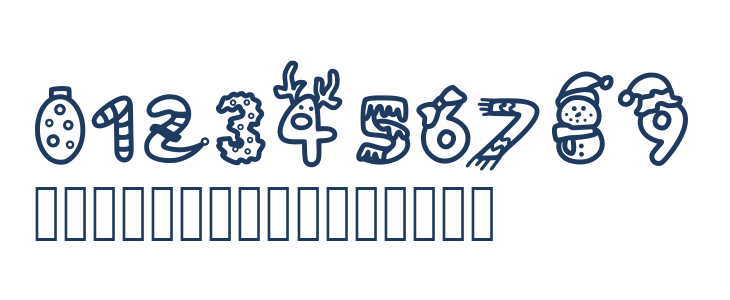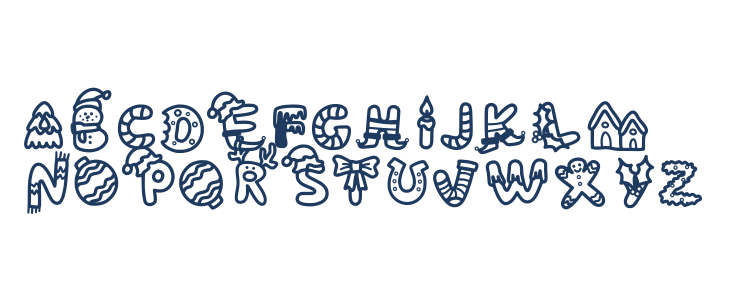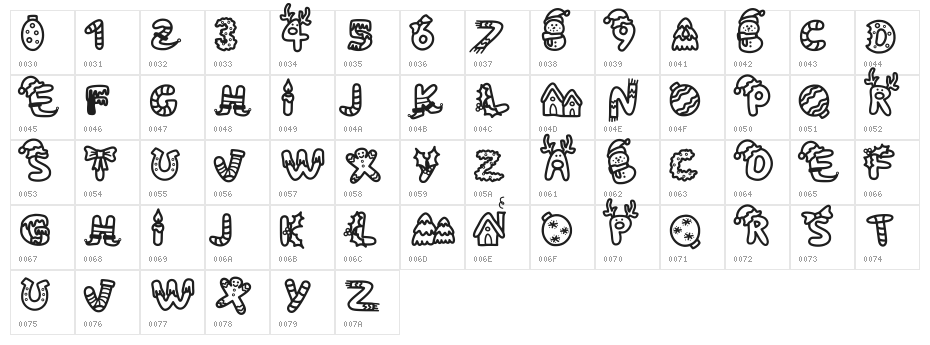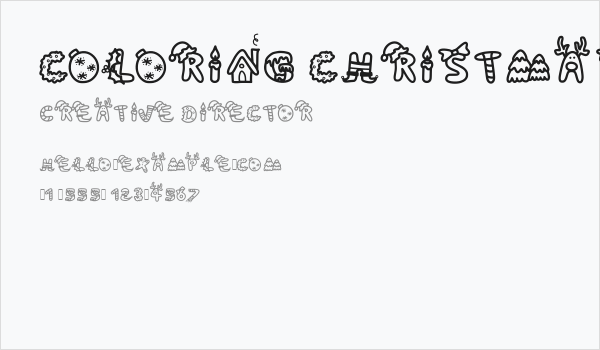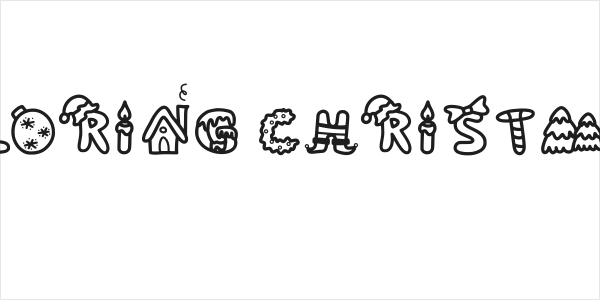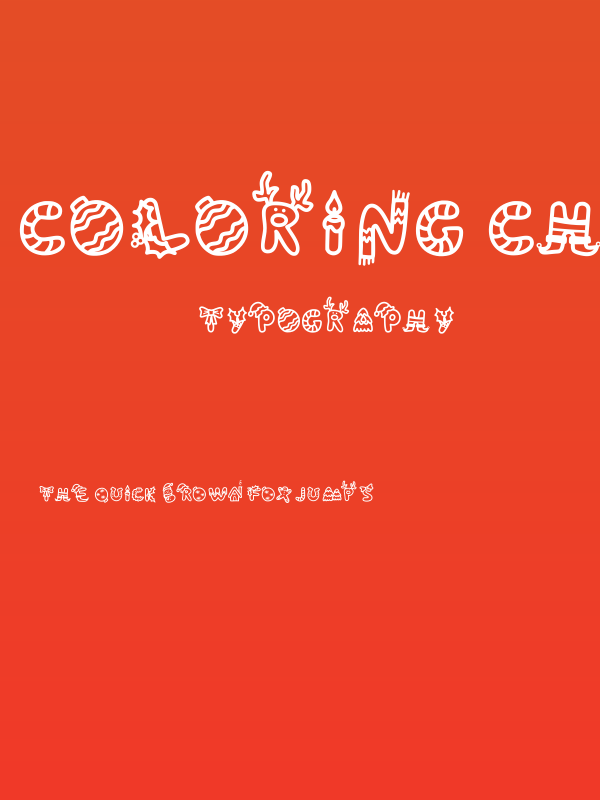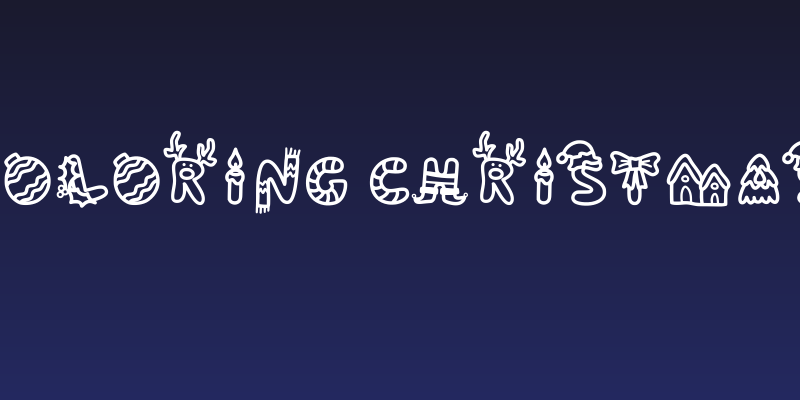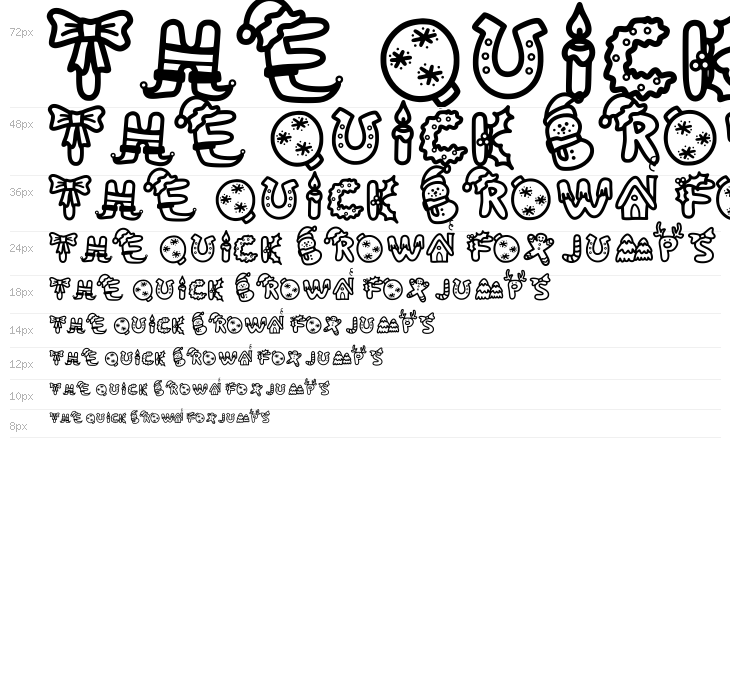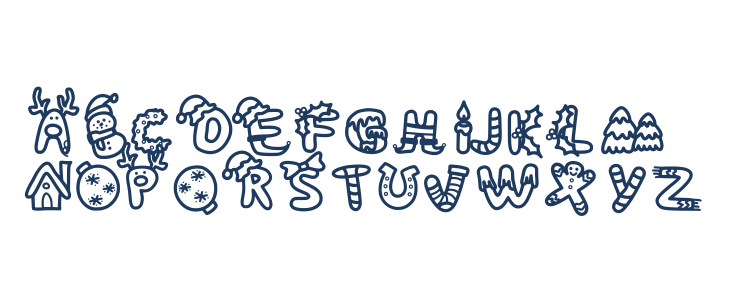
coloring christmas Font
coloring christmas Description
A playful, decorative display font featuring Christmas-themed elements such as Santa hats, candy canes, snowflakes, reindeer antlers, and ornaments integrated into each character. The outlines are bold and hand-drawn, with whimsical, irregular shapes and ample space for coloring inside the letters and numbers.
| Overall Style | Decorative, Playful, Festive |
| Use Case | Headlines, Posters, Crafts, Coloring Pages |
| Proposed Projects | Holiday cards, children's coloring books, festive posters, party invitations, classroom activities, seasonal crafts. |